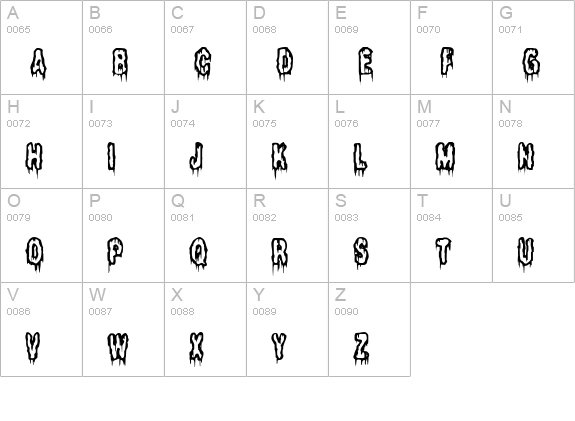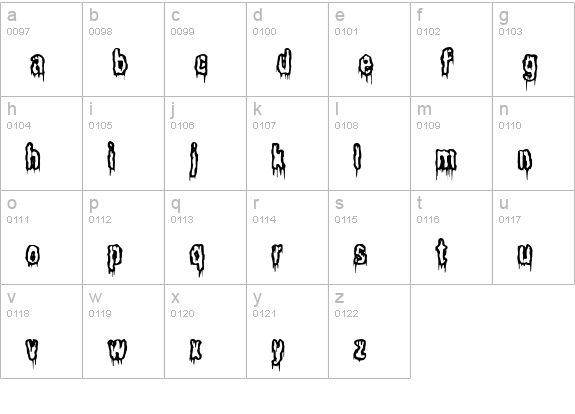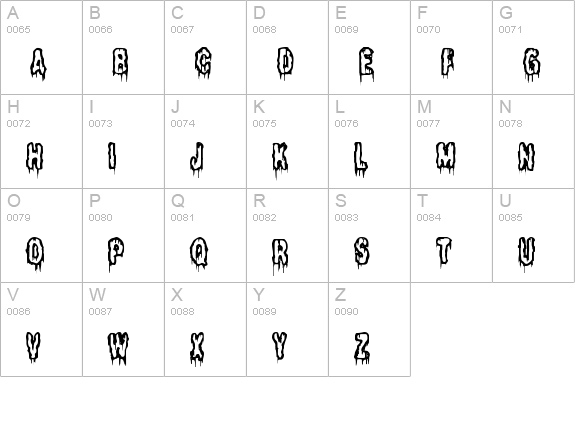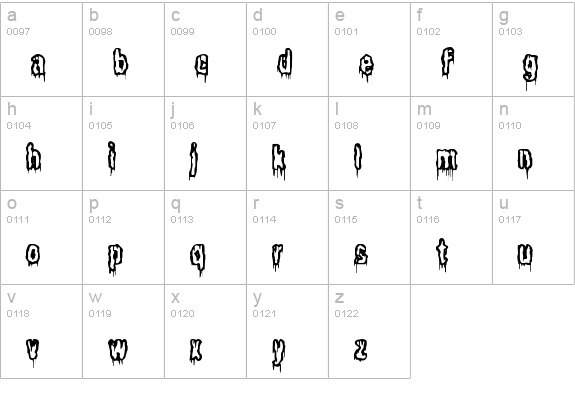
It Lives In The Swamp (BRK) Font Details
Introducing It Lives In The Swamp (BRK) font, a captivating and mysterious typeface that perfectly captures the essence of the untamed wilderness. This font possesses a unique charm that transports you to the heart of a dark and enigmatic swamp, where secrets lie hidden beneath the murky waters. It Lives In The Swamp (BRK) font boasts an exquisite balance between elegance and ruggedness, making it an ideal choice for a wide range of creative projects. Whether you're designing a book cover for a spine-tingling horror novel, crafting an immersive video game interface, or creating an atmospheric poster for a thrilling adventure film, this font will undoubtedly elevate your work to new heights. What's even better is that It Lives In The Swamp (BRK) font is freely available to download at FontsMarket.com. Yes, you heard it right – you can unleash the power of this captivating font without spending a single penny. This makes it the perfect choice for budget-conscious designers, students, or anyone looking to add a touch of intrigue to their creations. With its bold and expressive letterforms, It Lives In The Swamp (BRK) font demands attention and effortlessly conveys a sense of mystery and intrigue. Each character is meticulously crafted, ensuring that every word you create carries an air of enigma and fascination. So, why wait? Dive into the depths of the swamp and let It Lives In The Swamp (BRK) font guide you through a world of endless possibilities. Download it for free at FontsMarket.com and let your imagination run wild as you bring your designs to life with this captivating typeface.